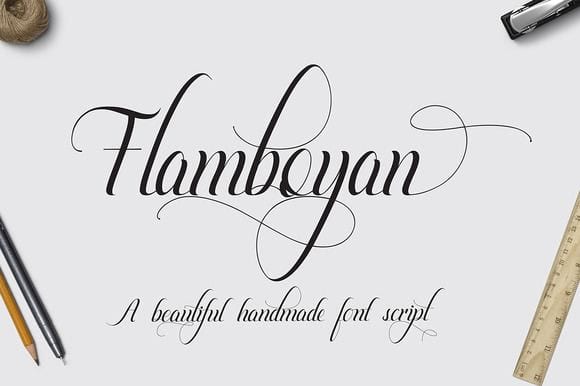
flamboyan
Unleash Creativity with Flamboyan Font
Flamboyan Font, crafted by the talented designer in 2022, is a bold typeface that captures attention with its unique character. Ideal for modern branding, advertising, and poster designs, this font incorporates striking shapes and dynamic lines that make any text stand out. Whether you’re designing flyers for an event or creating an eye-catching logo, Flamboyan Font brings a fresh and energetic vibe to your projects.
Exploring the Features of Flamboyan Font
The Origins and Inspiration behind Flamboyan Font
Inspired by vibrant tropical themes and playful designs, Flamboyan Font stands out with its unique flair. Created to embody a sense of adventure and creativity, the font reflects a blend of modern and traditional design elements, making it suitable for various applications. From marketing material to social media graphics, Flamboyan invites creativity and encourages expressive designs.
Best Uses for Flamboyan Font
Flamboyan Font shines in projects that aim to make a bold statement. Perfect for branding, advertisements, and posters, it adds personality to any design. Its eye-catching style works beautifully in digital and print formats, making it a versatile choice for designers seeking to enhance their creative projects with flair and originality.